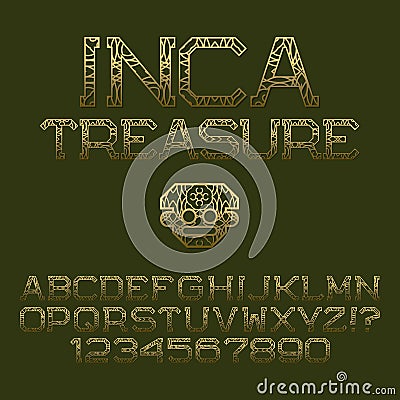
Golden Patterned Angular Letters And Numbers. Decorative Elegant Font. Isolated English Alphabet With Text Inca Treasure Cartoon Vector
Golden patterned angular letters and numbers. Decorative elegant font. Isolated english alphabet with text Inca Treasure #104849609
Golden patterned angular letters and numbers. Decorative elegant font. Isolated english alphabet with text Inca Treasure.